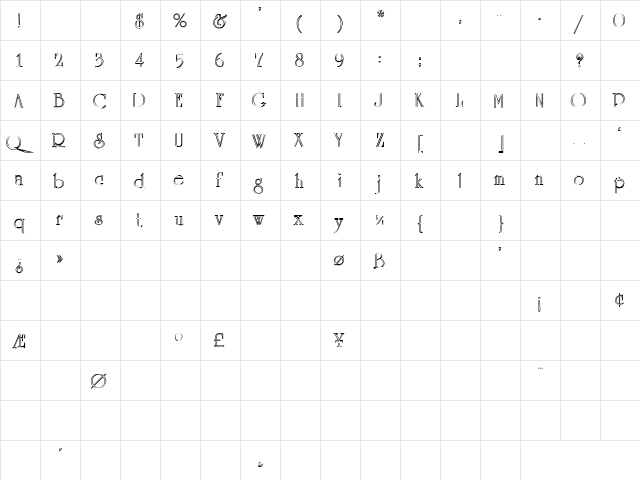
Fancy Outline 1 Regular
Design Context for Fancy Outline 1 Typeface
Fancy Outline 1 is built around its visual character rather than neutral utility — its distinctive forms are designed to make an impression at display sizes.
Font Pairing: Pair with a clean neutral sans-serif for body copy to let Fancy Outline 1's character lead without overwhelming the composition.
Pro Tip: Use Fancy Outline 1 exclusively at display sizes — it was designed to be seen, not read at length. Let a neutral companion handle body copy.